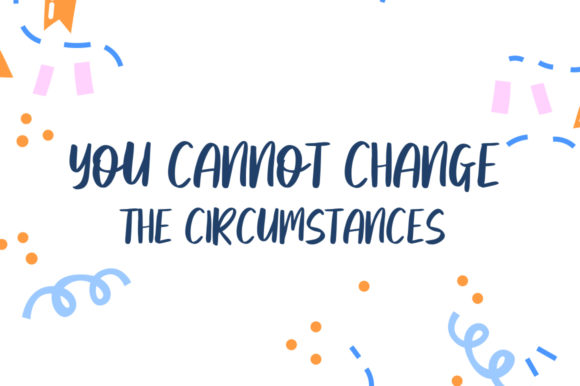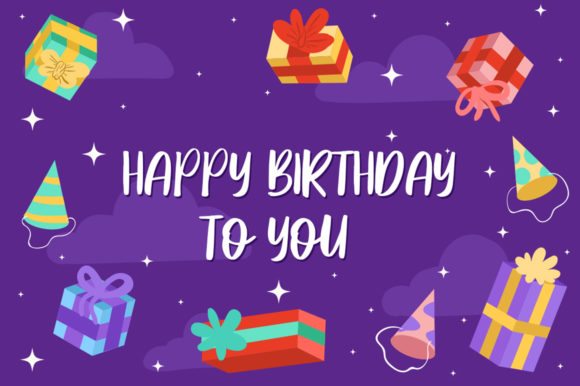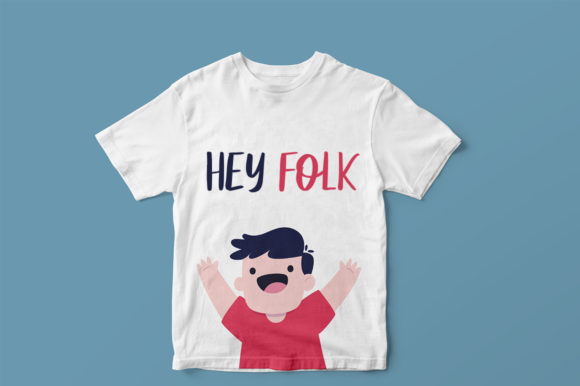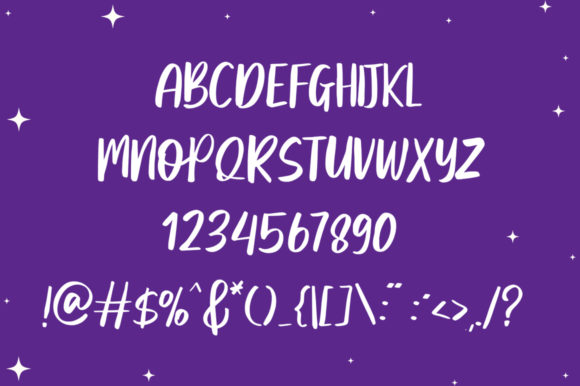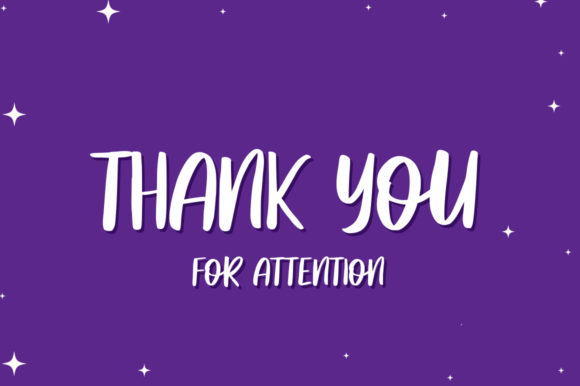
Balming Font
About Balming Font
Balming is a fun and cute handwritten font. It features a cartoon style that makes it perfect for any children or school-themed project. It will elevate a wide range of design projects to the highest level, be it branding, headings, wedding designs, invitations, signatures, logos, labels, and much more!